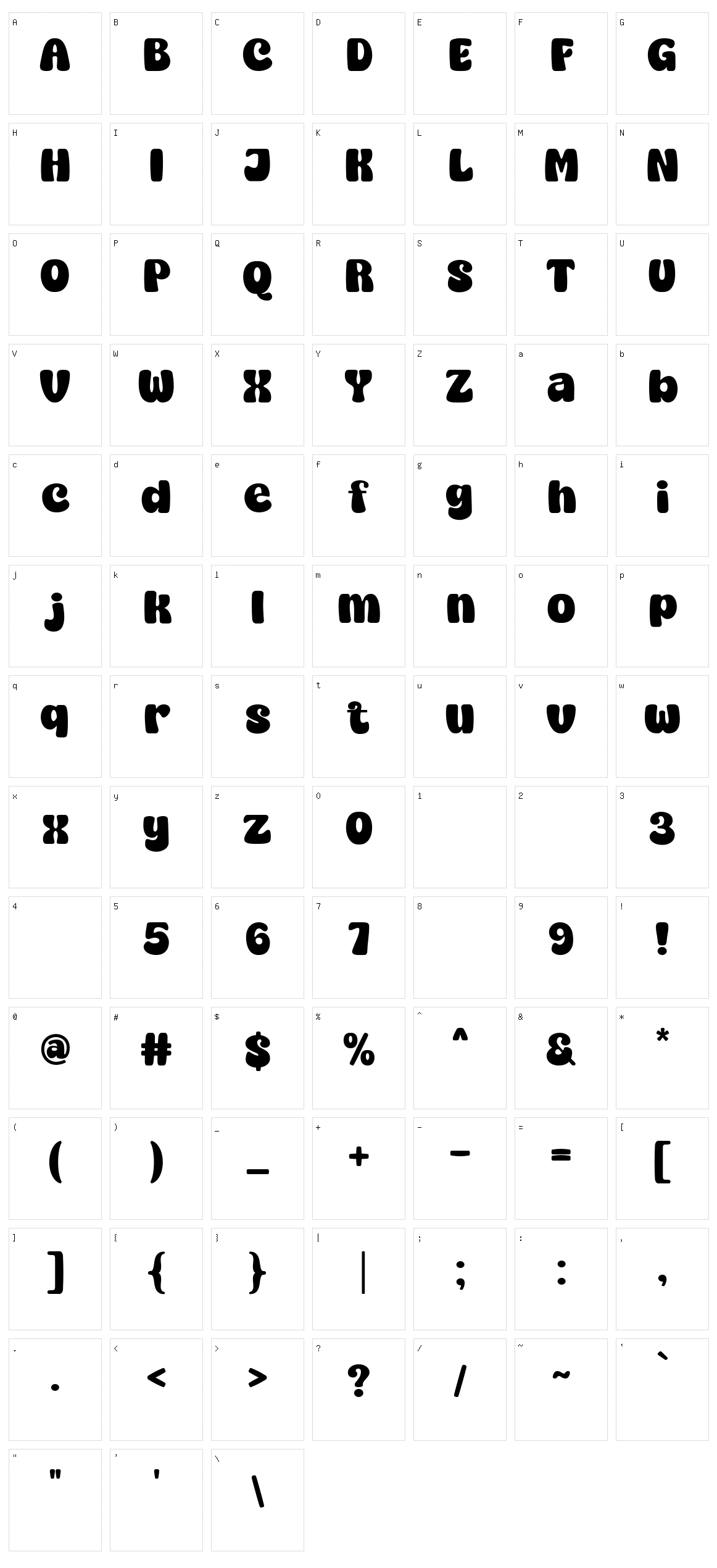
Introducing Super Chunky: The Font That Shouts Without Saying a Word
Super Chunky isnât your average font. Itâs a bold statement piece designed to grab attention and leave a lasting impression. Forget subtlety, Super Chunky embraces chunky letterforms with unyielding thickness and unwavering confidence. More